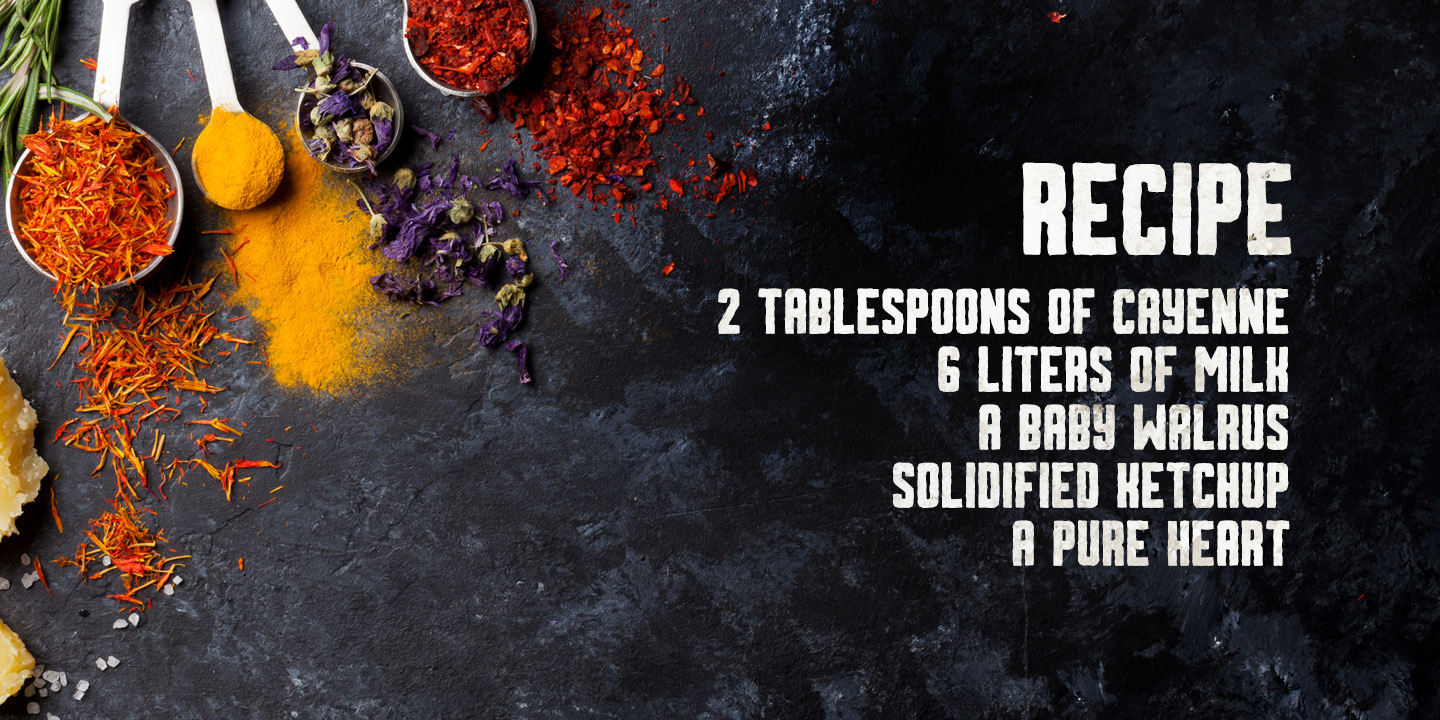
Sumac Font Free Download - Web download typeface sumac typeface free. Web sumac comes in 4 styles and includes uppercase multilingual letters, numbers and punctuation. All font, font family, grotesque, otf, roman, sans serif, set.
All font, font family, grotesque, otf, roman, sans serif, set. Web sumac comes in 4 styles and includes uppercase multilingual letters, numbers and punctuation. Web download typeface sumac typeface free.
SUMAC TYPEFACE on Behance
Web download typeface sumac typeface free. All font, font family, grotesque, otf, roman, sans serif, set. Web sumac comes in 4 styles and includes uppercase multilingual letters, numbers and punctuation.
Sumac Typeface Font
Web download typeface sumac typeface free. All font, font family, grotesque, otf, roman, sans serif, set. Web sumac comes in 4 styles and includes uppercase multilingual letters, numbers and punctuation.
SUMAC TYPEFACE on Behance
Web download typeface sumac typeface free. Web sumac comes in 4 styles and includes uppercase multilingual letters, numbers and punctuation. All font, font family, grotesque, otf, roman, sans serif, set.
Sumac Font Fontspring
All font, font family, grotesque, otf, roman, sans serif, set. Web download typeface sumac typeface free. Web sumac comes in 4 styles and includes uppercase multilingual letters, numbers and punctuation.
Sumac Typeface by MehmetRehaTugcu GraphicRiver
All font, font family, grotesque, otf, roman, sans serif, set. Web download typeface sumac typeface free. Web sumac comes in 4 styles and includes uppercase multilingual letters, numbers and punctuation.
Sumac Typeface Font
Web download typeface sumac typeface free. Web sumac comes in 4 styles and includes uppercase multilingual letters, numbers and punctuation. All font, font family, grotesque, otf, roman, sans serif, set.
Sumac Typeface Font
Web download typeface sumac typeface free. All font, font family, grotesque, otf, roman, sans serif, set. Web sumac comes in 4 styles and includes uppercase multilingual letters, numbers and punctuation.
All font, font family, grotesque, otf, roman, sans serif, set. Web sumac comes in 4 styles and includes uppercase multilingual letters, numbers and punctuation. Web download typeface sumac typeface free.
Web Sumac Comes In 4 Styles And Includes Uppercase Multilingual Letters, Numbers And Punctuation.
Web download typeface sumac typeface free. All font, font family, grotesque, otf, roman, sans serif, set.